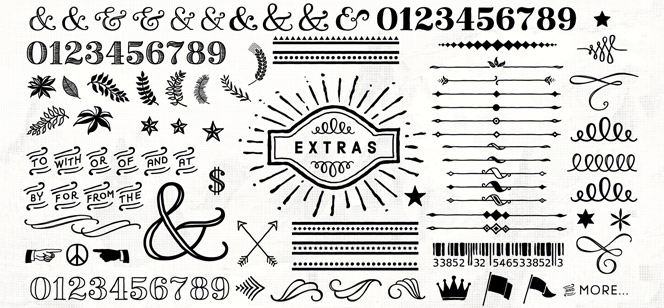
Harman font
Harman font family is a charming romantic collection designed specifically for creating elegant and stylish typographic work. It’s entirely handmade – a fact that gives unique individuality to this font. If you want to achieve one-of-a-kind eye-pleasing look of your t-shirt, poster, logo or other typographic project you have, then this is the right choice for you.
Harman font family collection consists of seven different fonts (Deco, Elegant, Retro, Sans, Script, Slab, Western) that have different styles and features but are compatible with each other. Additionally, it offers a lot of extras that will be quite useful for any user.
Harman Collection is designed by the Turkish type designer Ahmet Altun. His devotion to art, calligraphy and typography resulted in the creation of elaborate fonts like: Festivo LC font, Akon font.
Designer: Ahmet Altun